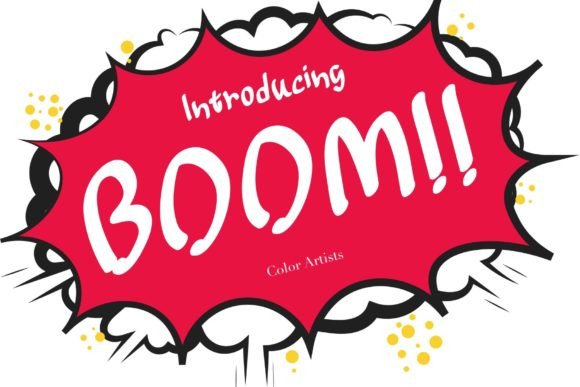
Introducing Boom Font: The Ultimate Design Game-Changer
I’ll never forget the time I was working on a project for a client who needed a bold, attention-grabbing font to make their poster stand out. I scoured the internet, tried countless fonts, but nothing seemed quite right. That was until I stumbled upon Boom font. With its explosive letterforms and dynamic vibe, it was the perfect solution to my design dilemma. In this article, I’ll share my experience with Boom font, its features, and how to make the most of it in your designs.
What is Boom Font?
Boom font is a bold, modern sans-serif font designed to add excitement and impact to your designs. Its unique letterforms are perfect for making a statement, whether you’re designing posters, banners, or headlines. With Boom font, you can add a dynamic and energetic vibe to your project that will leave a lasting impression on your audience.
My Honest Review of Boom Font
- ✨ Attention-grabbing letterforms: Boom font is designed to stand out, and it does just that with its bold, explosive letterforms.
- ✅ Easy to read: Despite its boldness, Boom font is surprisingly easy to read, even at smaller sizes.
- 🌈 Versatile: Boom font is perfect for a wide range of design projects, from posters and banners to headlines and logos.
While Boom font is an excellent choice for many design projects, there are a few things to keep in mind:
- 🤔 Limited use in body text: Due to its boldness, Boom font may not be the best choice for body text, especially in larger blocks of text.
- ⚠️ May not work well in small sizes: While Boom font is easy to read, it may not work well in very small sizes, such as captions or footnotes.
Boom font comes with a range of OpenType features and glyphs that can enhance your designs. Here are a few ways to access these features:
The Backstory of Boom Font
Boom font was designed by a team of creatives who wanted to create a font that would make a statement. Inspired by the energy and excitement of city life, they crafted a font that’s bold, dynamic, and attention-grabbing. With its unique letterforms and modern vibe, Boom font is perfect for designers who want to add a little excitement to their designs.
Q: What is Boom font?
A: Boom font is a bold, modern sans-serif font designed to add excitement and impact to your designs.